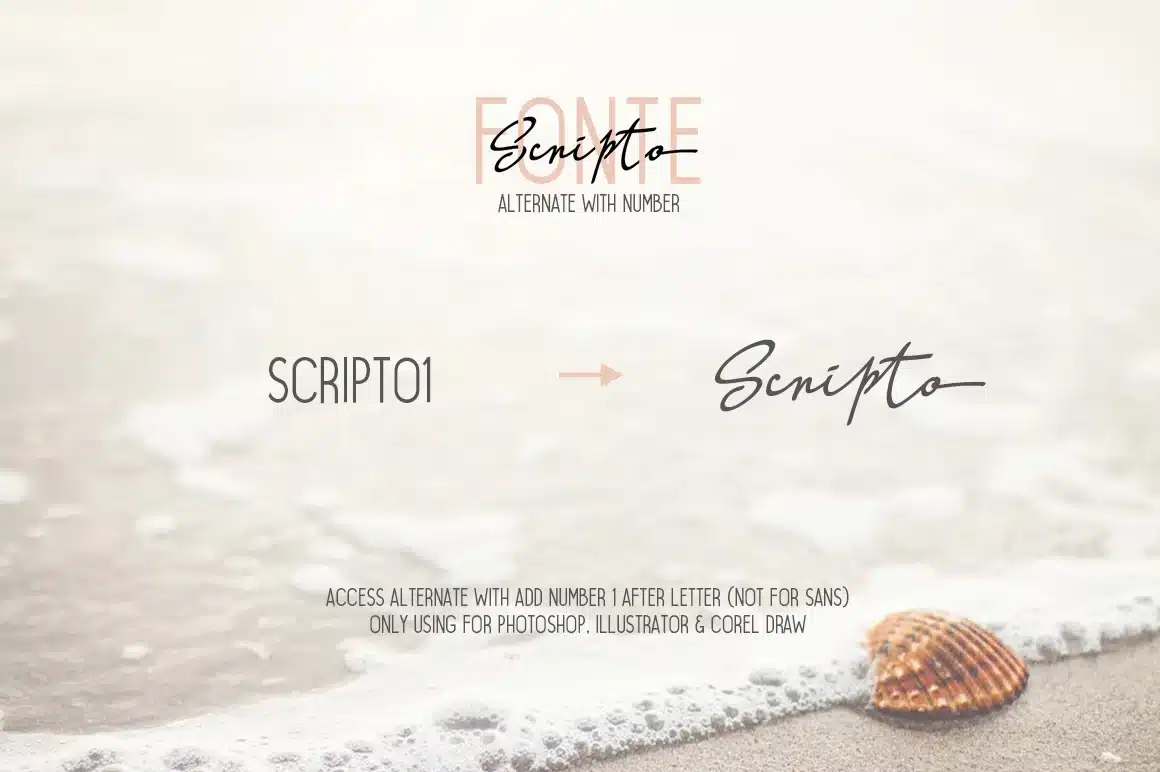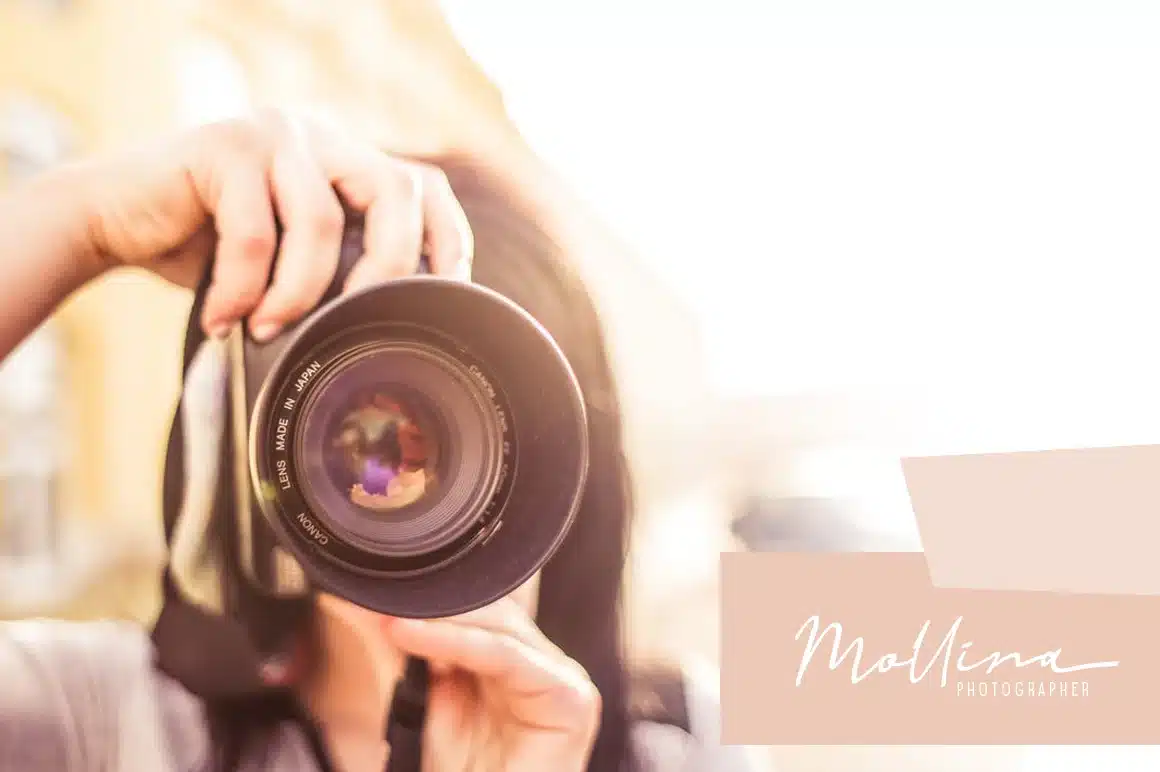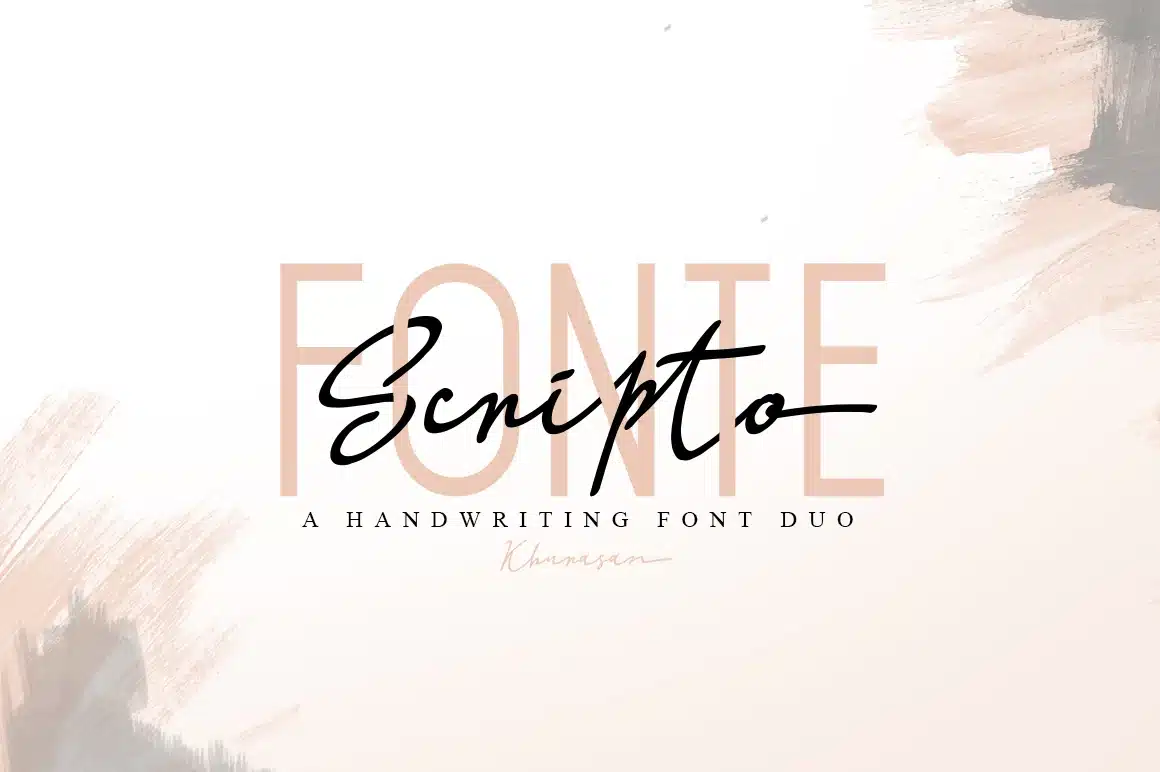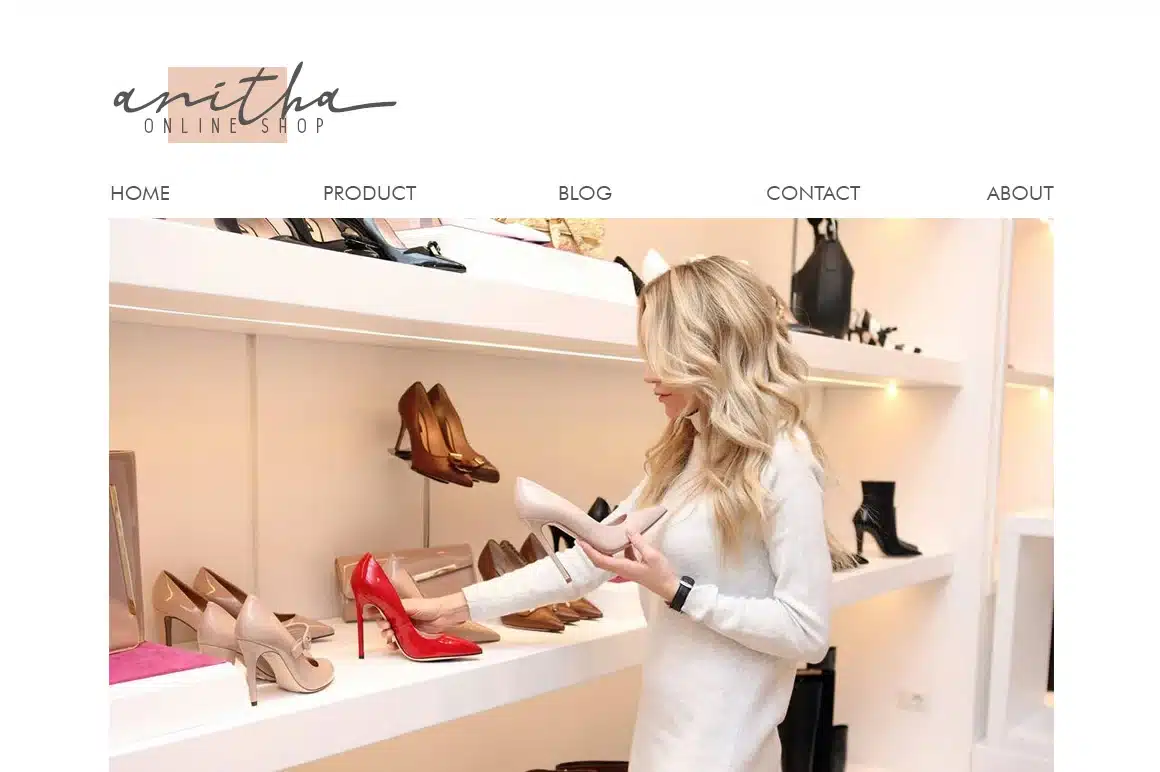
Scripto Fonte Font Duo
Scripto Fonte Font Duo, a handwriting script and sans nice font type. Scripto Fonte it’s perfect for namecard, poster, logo, magazine, cover, banner, tshirt and headers, or even large-scale artwork..